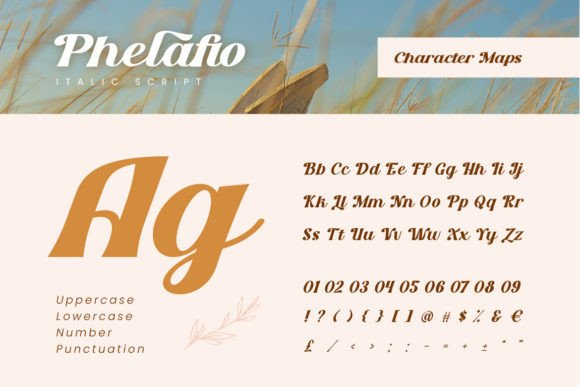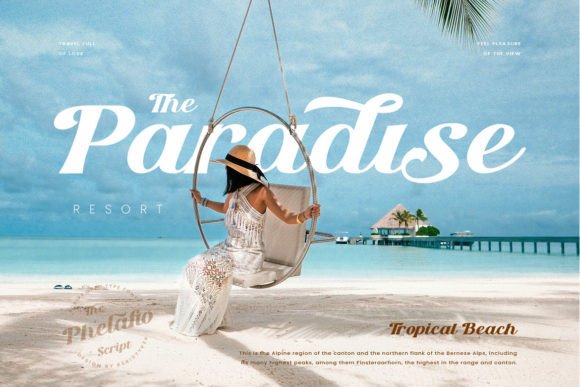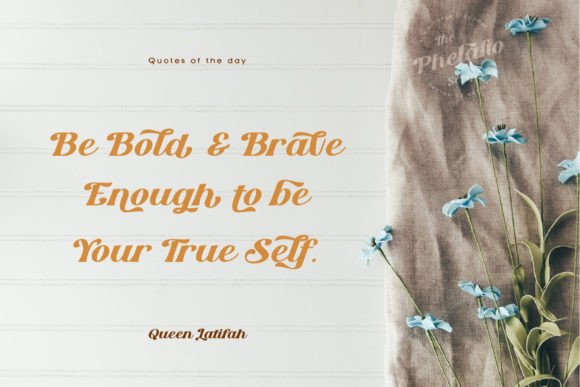
Introduction to Phelafio Font
Phelafio is a luxurious and stylish script font, perfect for upscale branding and high-end projects.
With its flowing and elegant strokes, this font exudes sophistication and glamour Use it to add a touch of luxury to your designs, from wedding invitations to the product packaging and beyond.